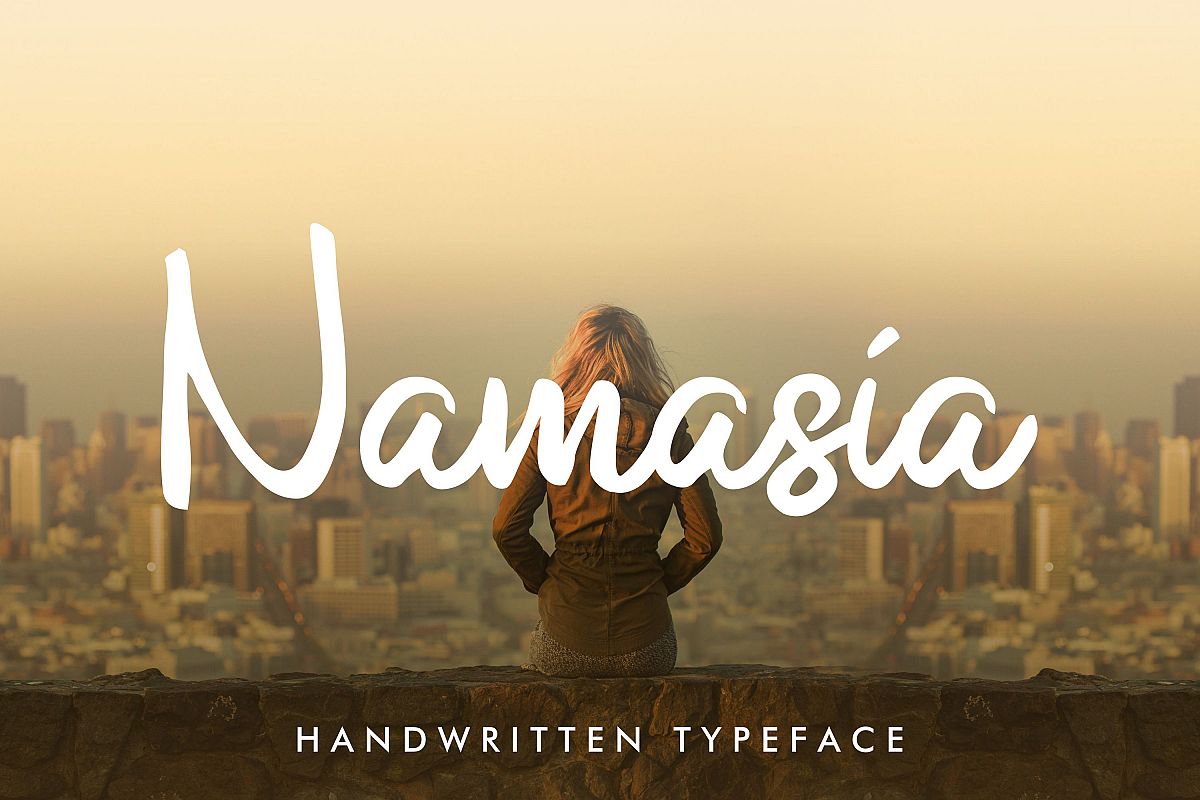
Namasia | Natural Script
Namasia is a natural touch of handwriting. Looks modern and elegant.
It's perfect for logos, apparel, invitations, branding, packaging, advertising, and much more!